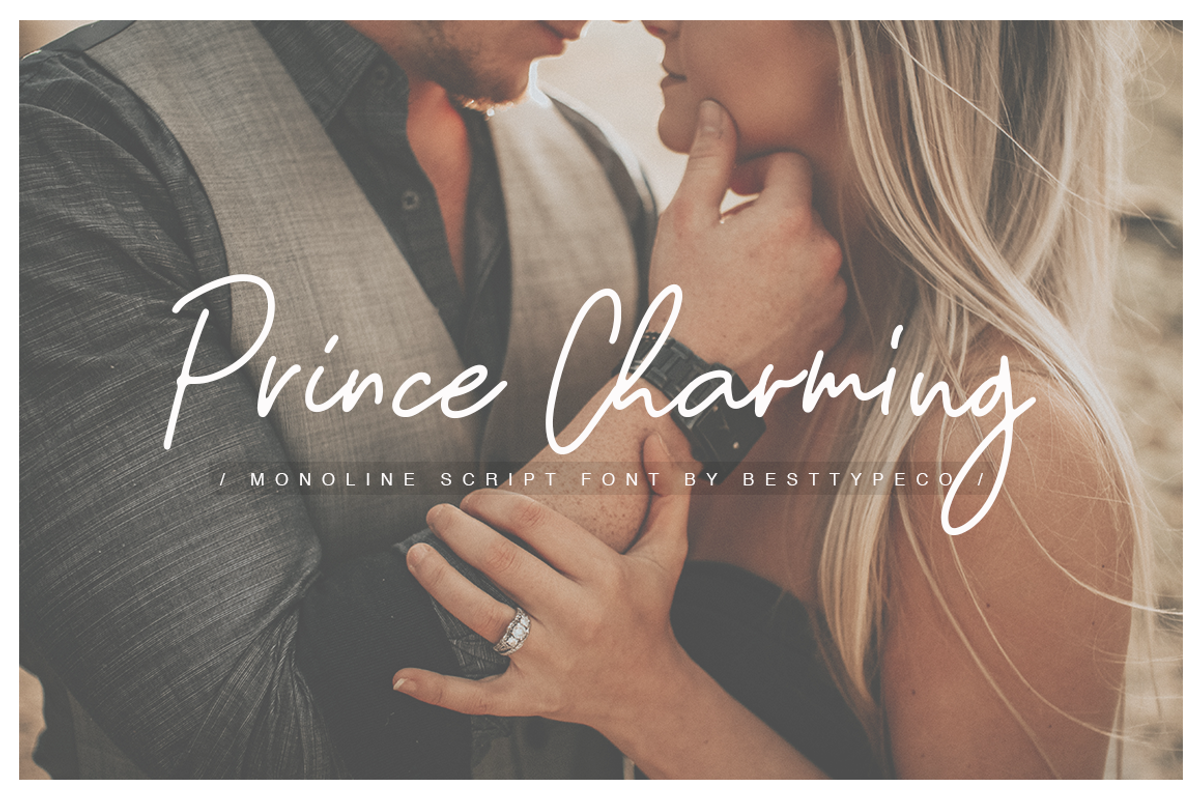
Prince Charming Font Free Download is an elegant, whimsical script typeface that combines timeless sophistication with a touch of fairytale charm. With its flowing curves, delicate flourishes, and beautiful letterforms, this font is perfect for creating luxurious invitations, wedding stationery, logos, book covers, and more.
The font’s royal and enchanting style gives your designs an air of elegance and grace, making it ideal for projects that require a touch of romance and classic beauty. Whether you're designing for a high-end event, a fairytale-themed brand, or romantic marketing materials, Prince Charming adds an enchanting, personalized feel.